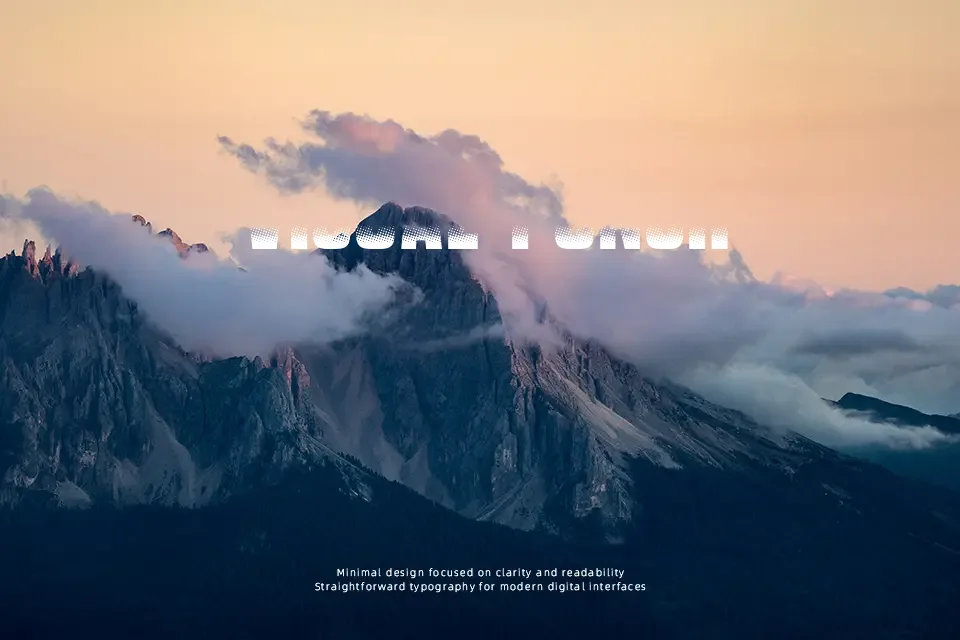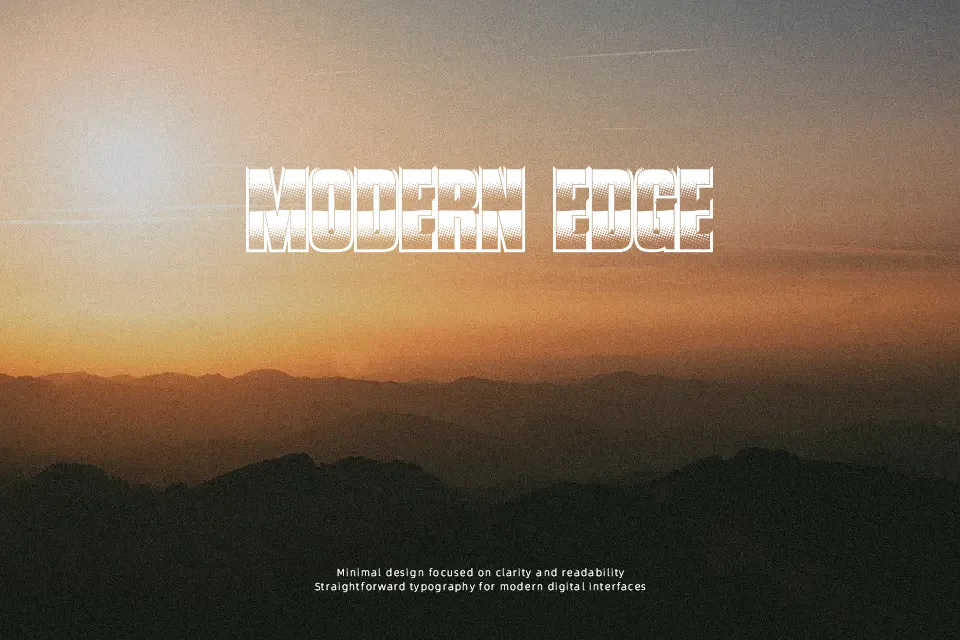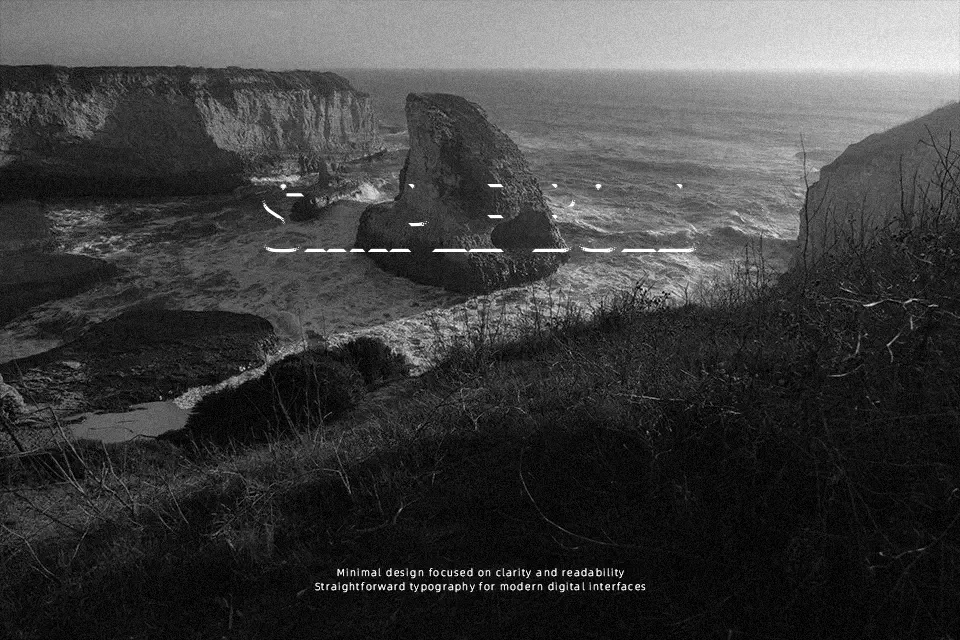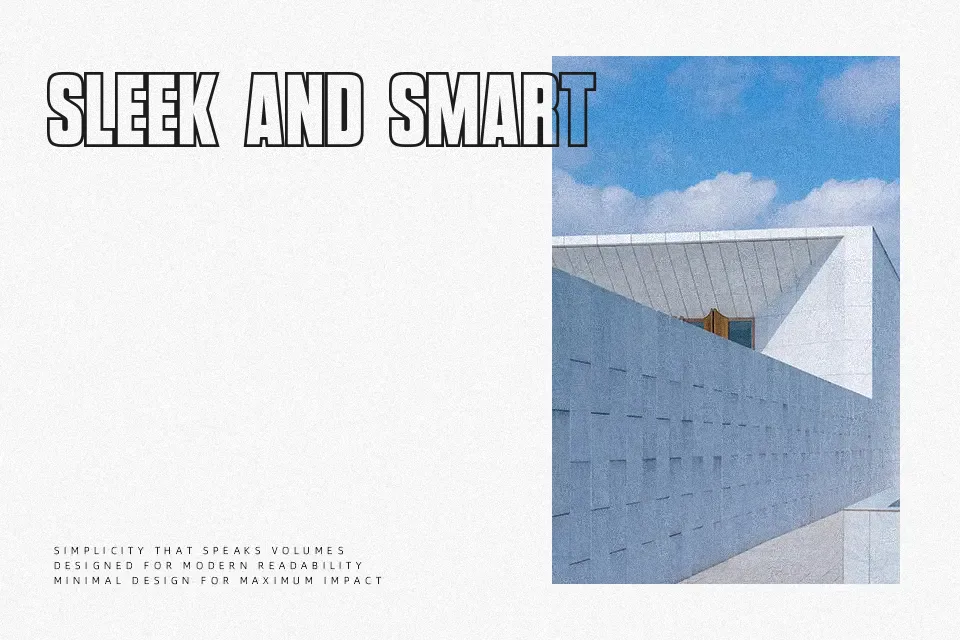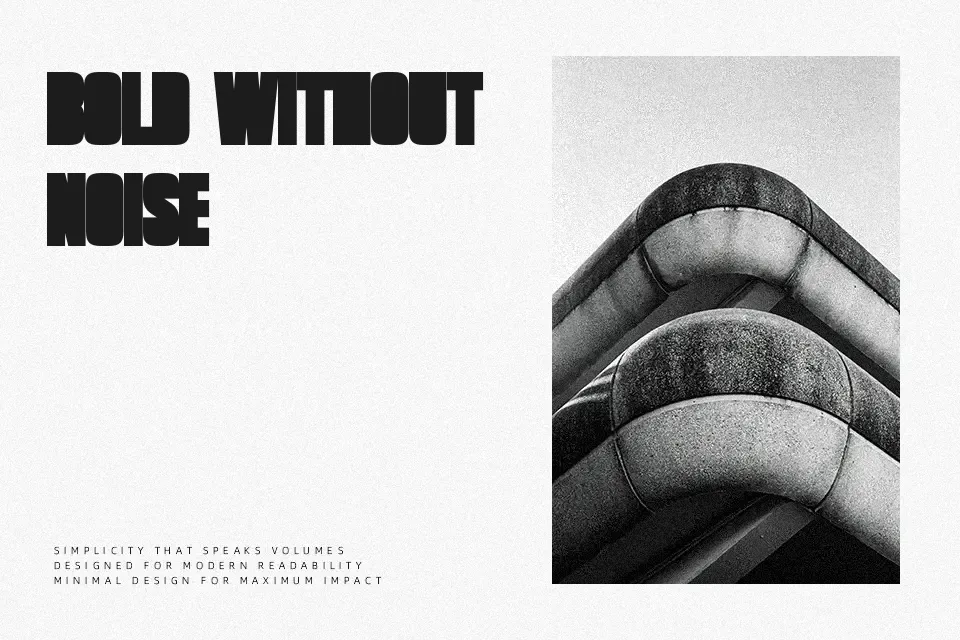
Vanchrome Font
Vanchrome Font features an all-caps condensed sans serif construction characterized by heavy vertical strokes, tight tracking, and squared curves. Proportions remain uniform and upright across the uppercase alphabet, creating a compact horizontal rhythm that maximizes impact in large display environments. Numerals mirror this dense geometry with clean, blocky strokes and high visual weight. While the design excels in striking poster headlines, video title cards, and product branding, dense letter spacing significantly reduces readability in small captions and extended text. The typeface performs best when displayed at larger sizes where its bold, chromatic structures can command immediate attention.
Best For: retro poster headlines, arcade game titles, merchandise graphics, product packaging headers
Not Ideal For: continuous body text, mobile interface labels, dense editorial layouts, small legal disclaimers
Perfect for gaming, headline, and logo, with a bold and condensed style.